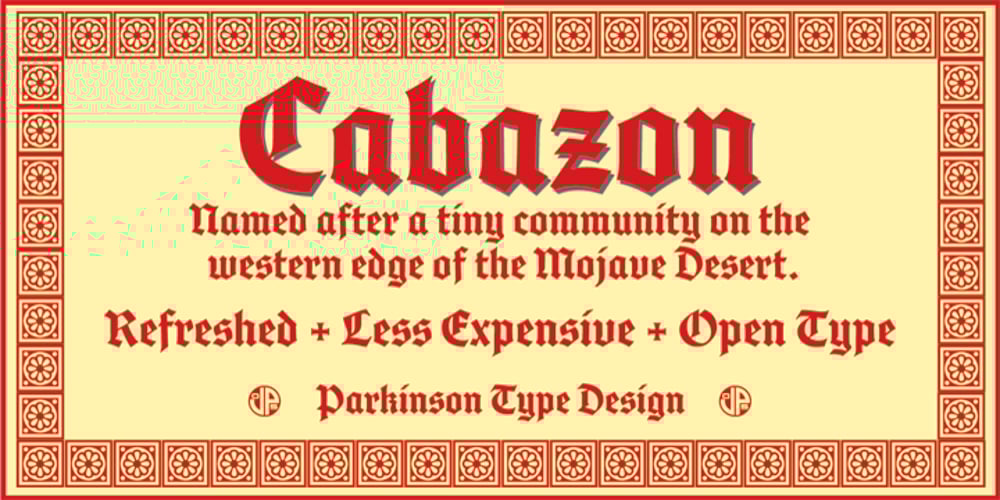
Cabazon Font Family was designed by Jim Parkinson and published by Parkinson. Cabazon contains 1 styles and family package options. Cabazon is an informal blackletter inspired by handlettering samples from many sources, and various time periods. Works by Rudolf Koch and Friedrich Heinrichsen are reflected, as well as the work of showcard lettering artists Ross George and Samuel Welo. Medieval manuscript samples were also helpful in developing this style.